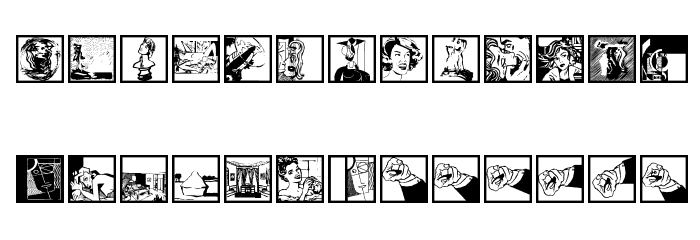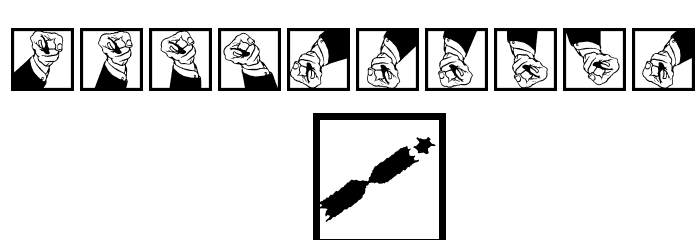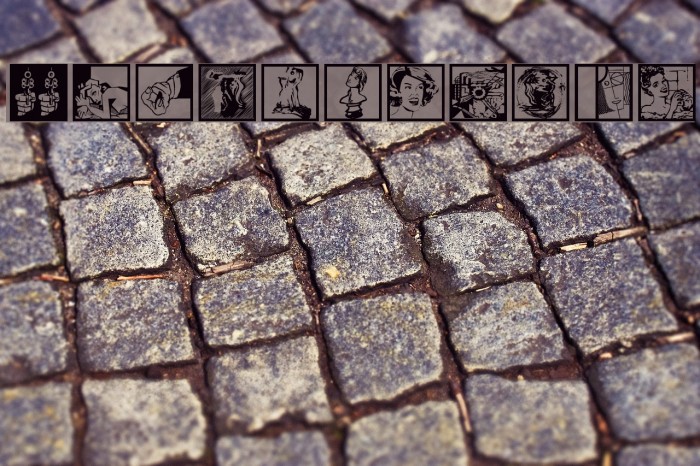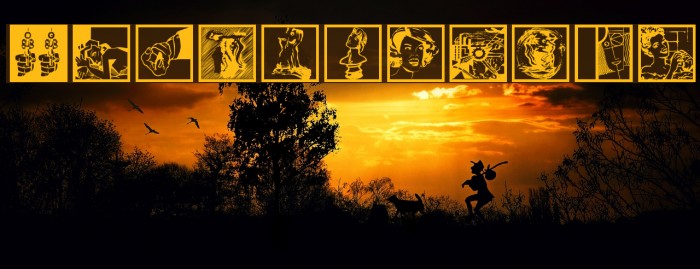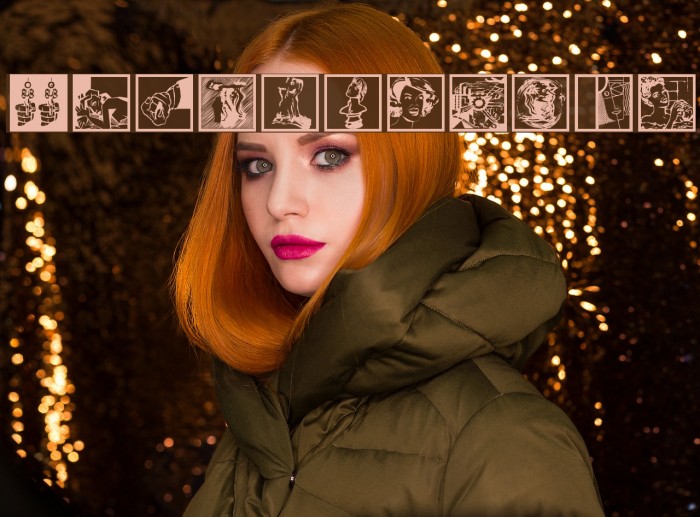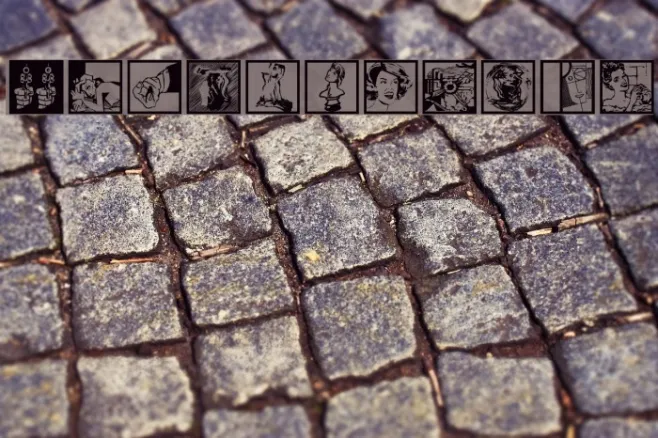
RoylichBats Font
This is a highly decorative and illustrative font that features comic-style artwork within each character. Each letter and symbol is represented by a unique black-and-white illustration, reminiscent of classic comic book panels. The artwork is detailed, capturing expressive faces, dynamic scenes, and iconic comic elements. This font is more of an artistic expression than a traditional typeface, making it suitable for projects that require a bold visual statement. The characters are square-shaped, maintaining a consistent size and format across the set.
A decorative font featuring comic-style illustrations within each character.
- Proposed Projects: Ideal for comic book covers, graphic novels, themed posters, and artistic projects that require a unique and eye-catching typeface.
- Use Case: Logos, Posters, Artistic projects